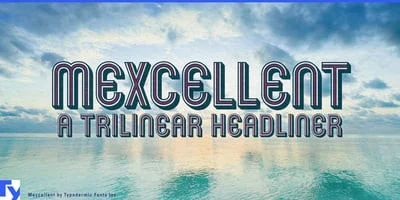
Mexcellent Font
Mexcellent Font is ideal for Mexican restaurants, Latin American brands, cultural festivals, vibrant packaging, food trucks, festive celebrations, and energetic lifestyle communications. This spirited typeface brings authentic cultural flair and festive energy to Mexican-inspired design projects.
Mexcellent Font is exciting because it captures the vibrant spirit and rich cultural heritage of Mexican design with its lively letterforms that convey celebration and authenticity while maintaining excellent readability and festive appeal across diverse cultural applications.
The Mexcellent Font family includes multiple weights and decorative variations that reflect the colorful tradition of Mexican typography. This festive collection provides designers with authentic options for creating memorable and culturally rich brand experiences.
Mexcellent Font provides access to a culturally crafted typeface that embodies the warmth, vibrancy, and authentic spirit of Mexican design tradition. This spirited font features carefully designed letterforms with festive details that create immediate associations with Mexican culture, celebration, and culinary excellence. The typeface showcases vibrant character and cultural authenticity that enhance food-related and cultural communications while maintaining professional functionality. Its festive character makes it particularly suitable for Mexican restaurants and cultural brands that require typography capable of conveying authentic heritage, warmth, and celebratory spirit. Mexcellent Font delivers exceptional cultural impact for applications where generic fonts fail to capture the richness and festive energy of Mexican traditions. The font's authentic appeal and vibrant aesthetic make it an essential tool for designers working on projects that require typographic expression of Mexican culture, festive celebration, and culinary authenticity that resonates with audiences seeking genuine cultural experiences and traditional flavors.